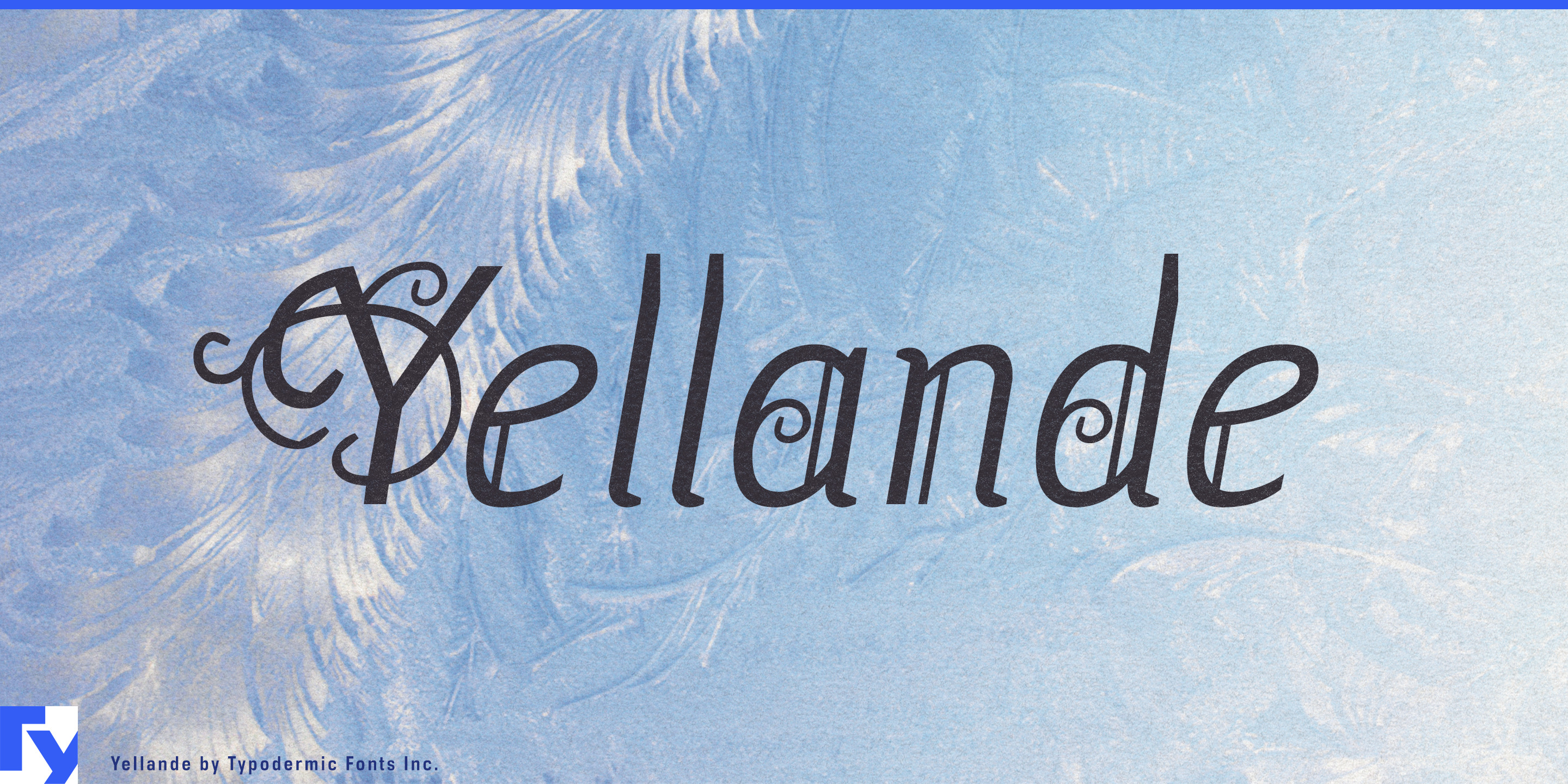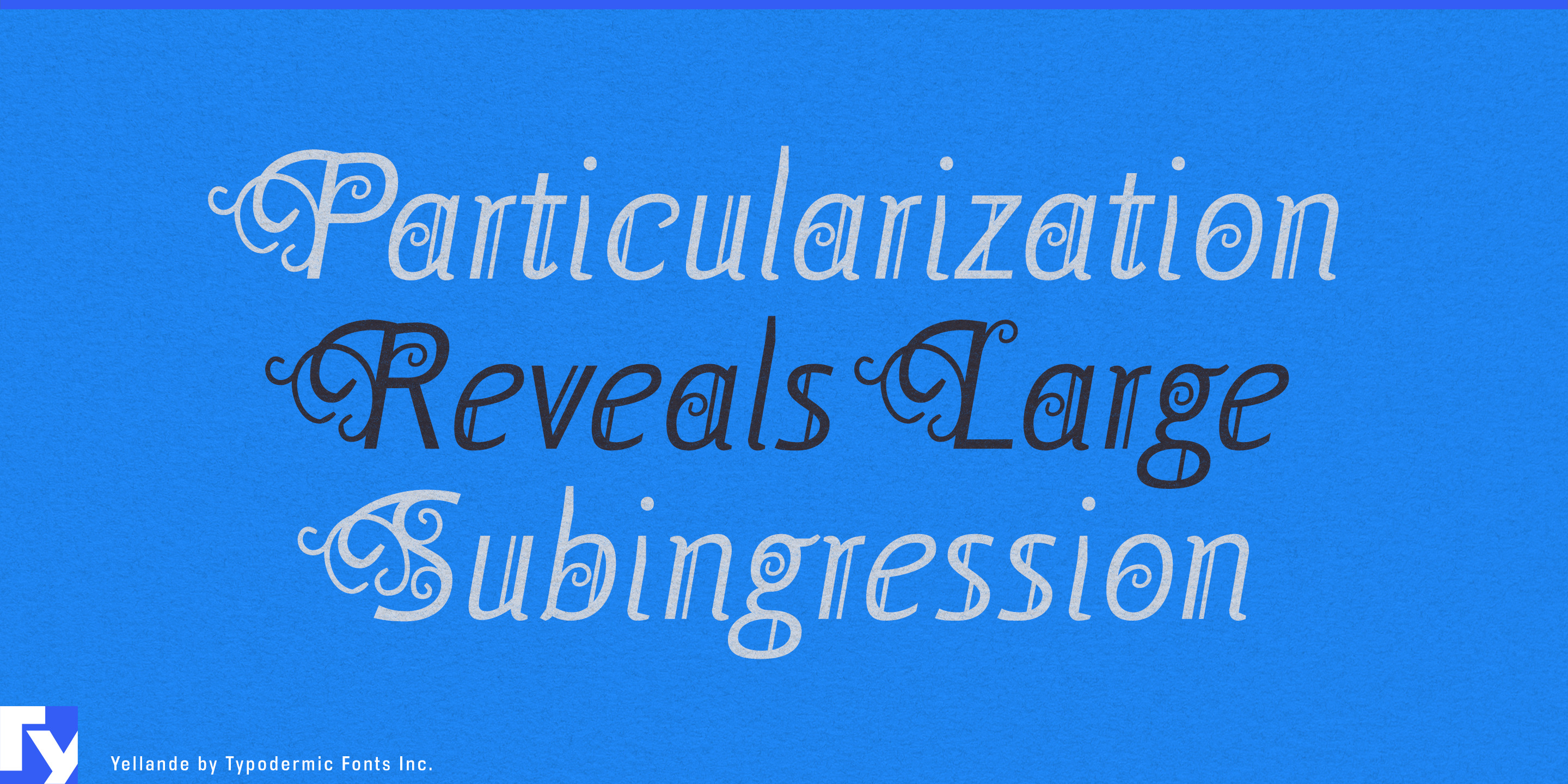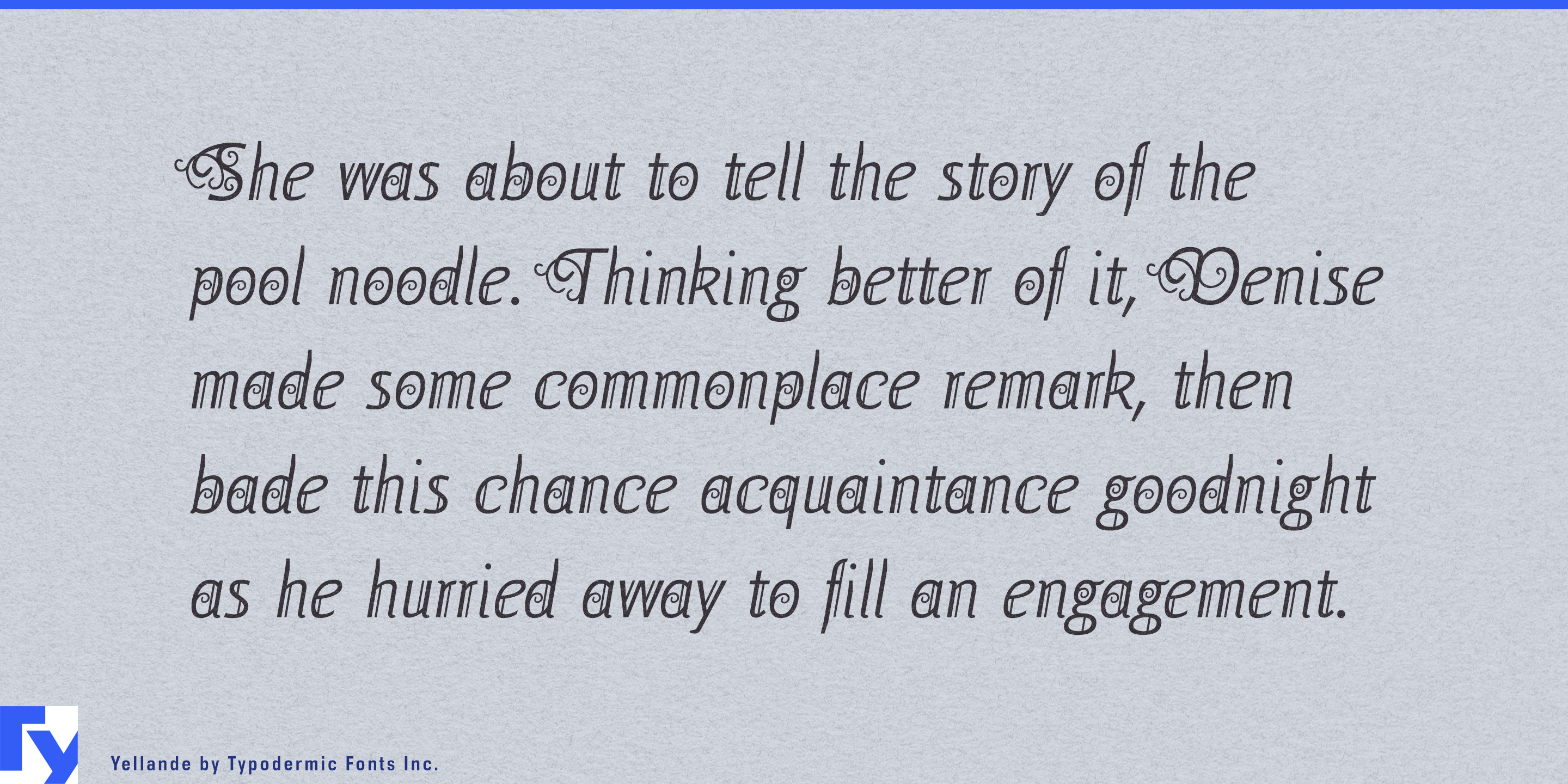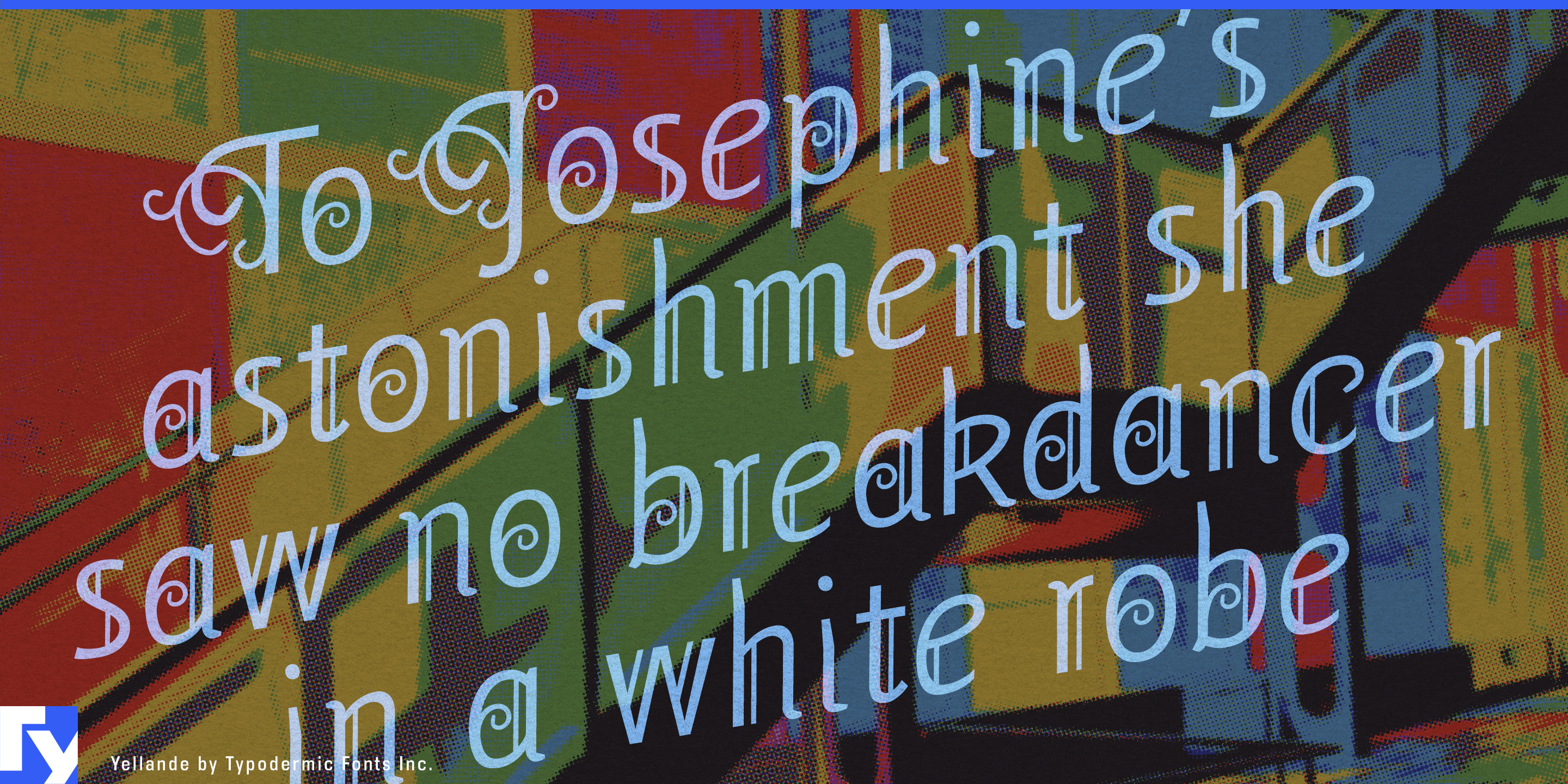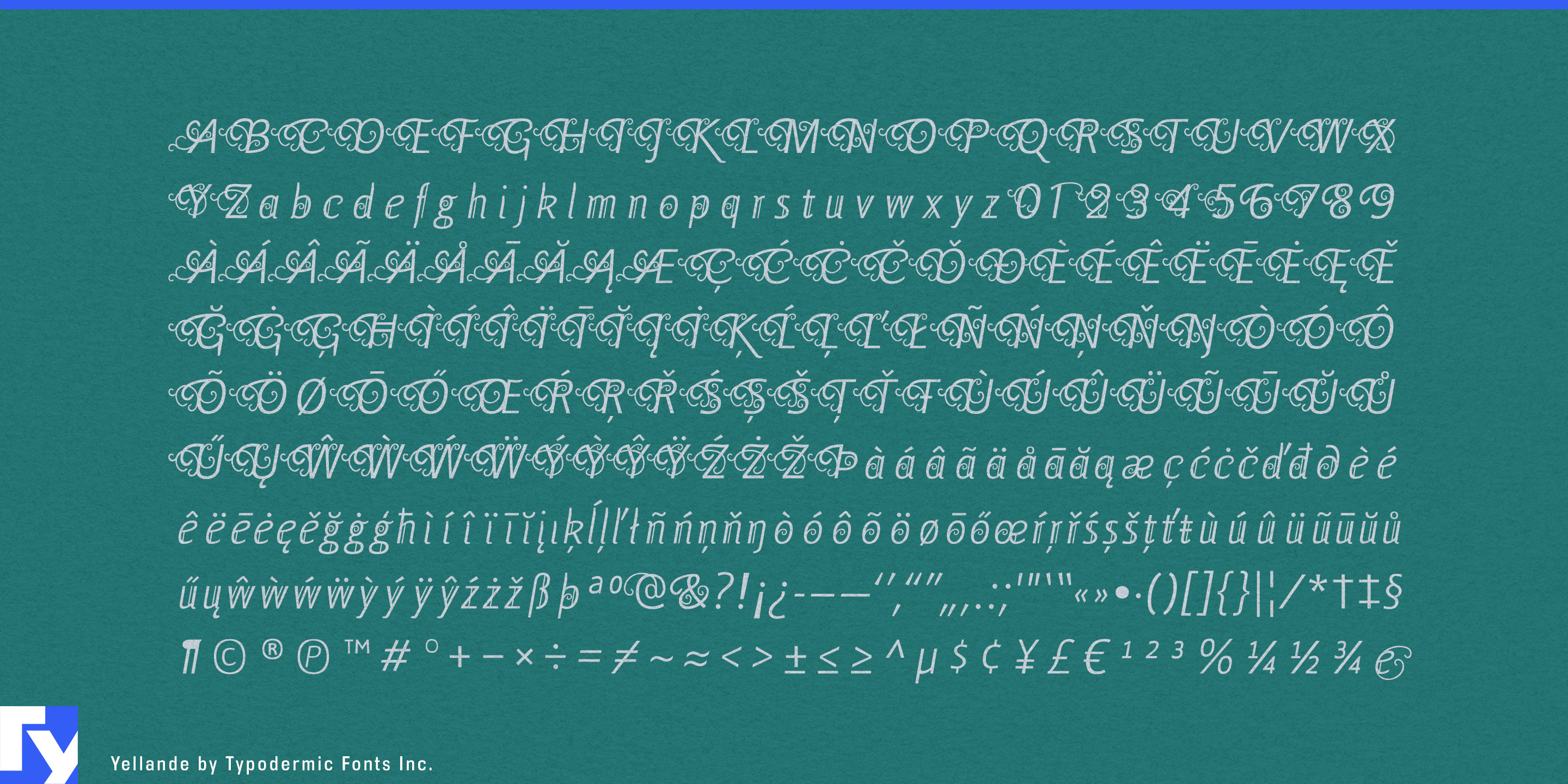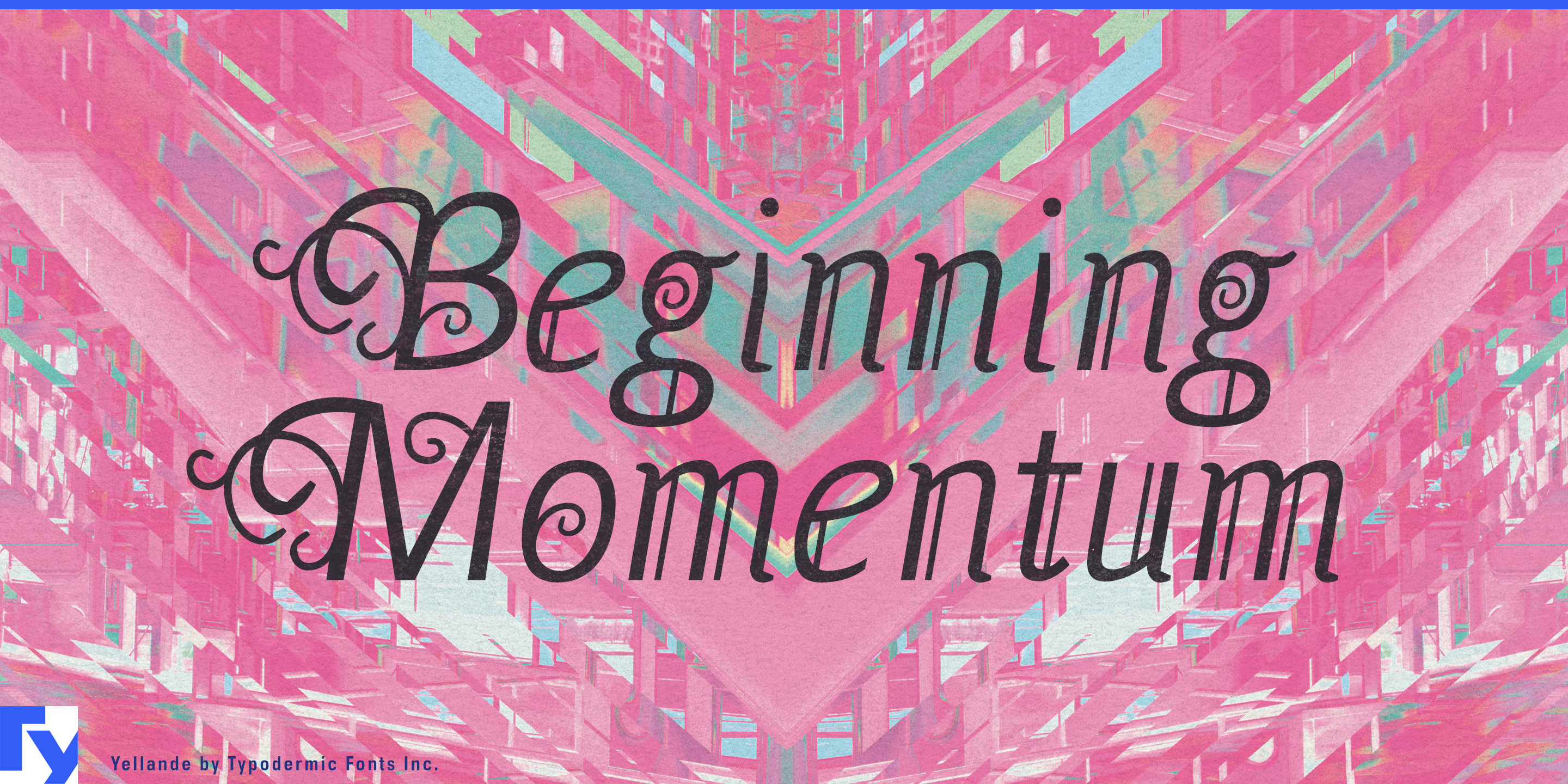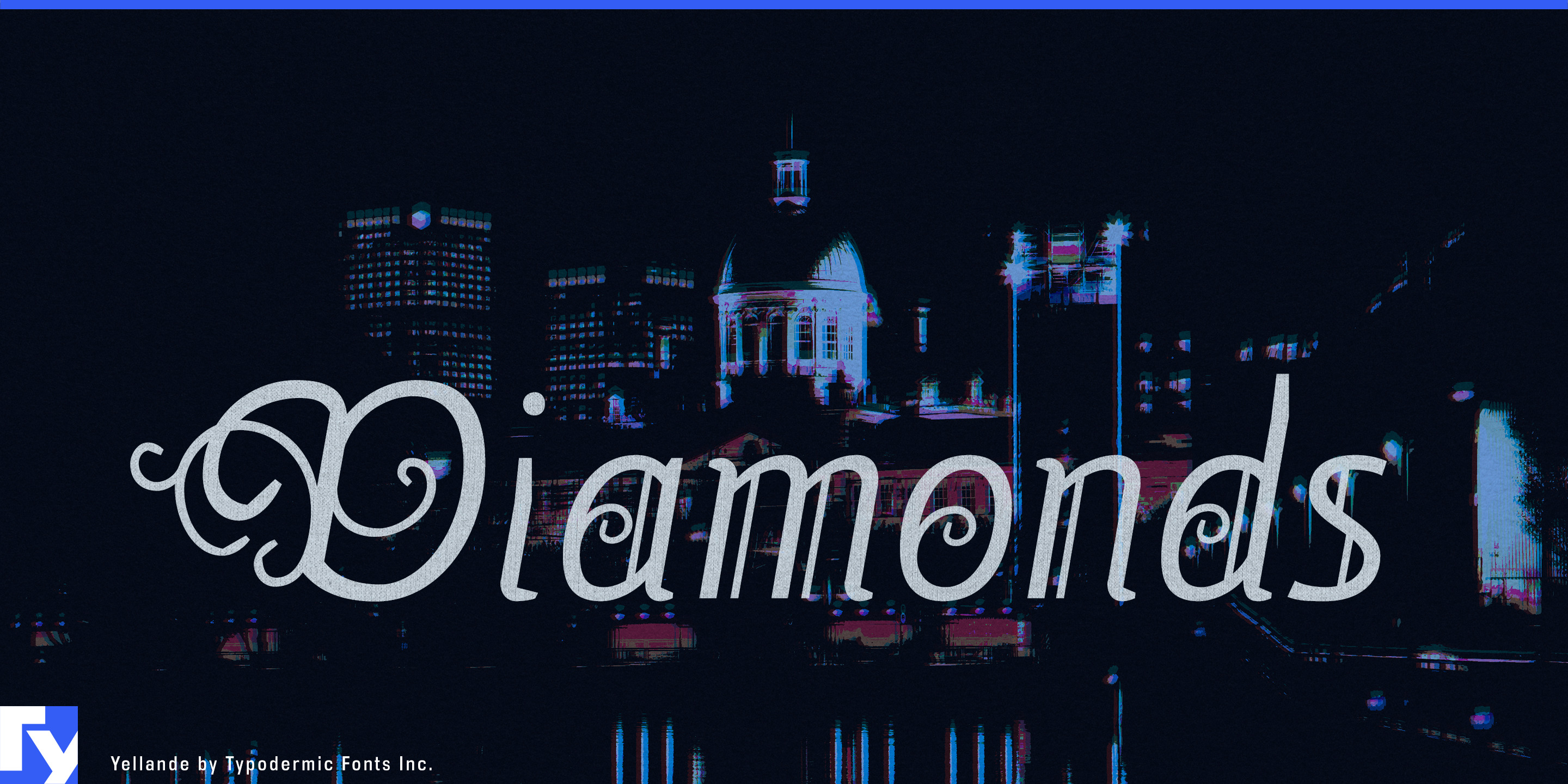
Yellande
Decorative metalwork has both structure and flourish, but typography aimed at that world often captures only one side. Industrial lettering can feel too hard and utilitarian; script faces can push the project toward bridal, cosmetic, or vaguely historical territory. Yellande takes a different route. Its formal serif structure is finished with curling terminals inspired by wrought iron that has been gripped, bent, and twisted with tools, giving the ornament a constructed quality rather than a handwritten one.
That makes Yellande especially useful for bespoke architectural metalwork. Companies producing custom gates, balcony railings, stair balustrades, entrance canopies, decorative screens, and ornamental fences can use it for company names, collection titles, showroom headers, project-book covers, and trade-fair graphics while a restrained companion face carries measurements, specifications, and fabrication details.
Heritage hardware provides an equally natural product setting. Premium door handles, cabinet pulls, hinges, knockers, hooks, escutcheons, fireplace accessories, and restoration fittings are small objects whose value often comes from shaping, finish, and material detail. Yellande can give a collection name, sample-box heading, catalog cover, or showroom display an ornamental metal character without turning it into a handwritten logo.
Historic-building restoration and adaptive reuse offer another strong role, particularly when surviving ironwork remains part of the architecture. A converted hotel, apartment building, restaurant, or mixed-use property may retain original balconies, stair rails, gates, or decorative screens that deserve to influence the new identity. Yellande can handle building names, courtyard or lounge names, restoration graphics, sales-gallery headings, and feature signage while acknowledging something visitors can actually see in the structure.
Contemporary conservatories and garden architecture extend that relationship into newer construction. Glazed garden rooms, greenhouse restaurants, ornamental pavilions, pergolas, and premium outdoor structures often combine slender metal framing with decorative planting. Yellande can identify pavilion names, garden-room collections, hospitality spaces, and showroom installations without relying on botanical scripts.
The same principle works in hospitality interiors where ironwork is part of the material palette: brasseries divided by decorative metal screens, courtyard restaurants enclosed by old railings, hotel bars beneath restored staircases, and greenhouse-style dining rooms. Yellande works best when ornament needs to feel made rather than merely drawn, giving architectural metalwork, heritage hardware, restored buildings, and contemporary garden structures a decorative serif that belongs to the same physical world.